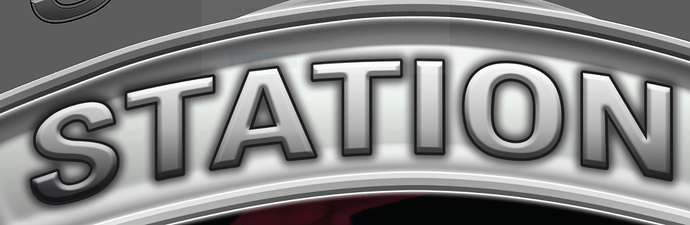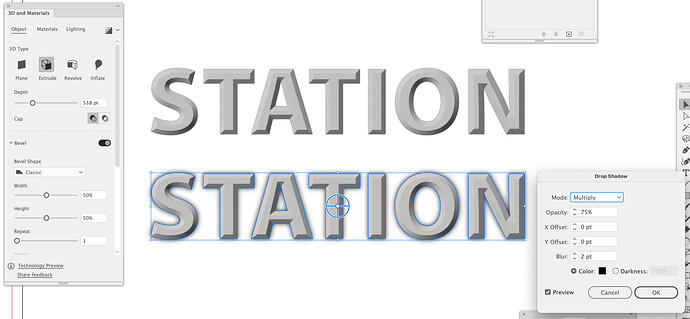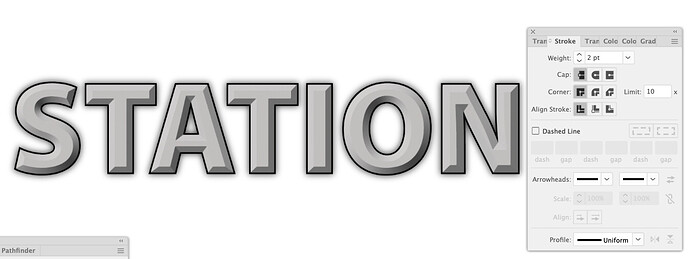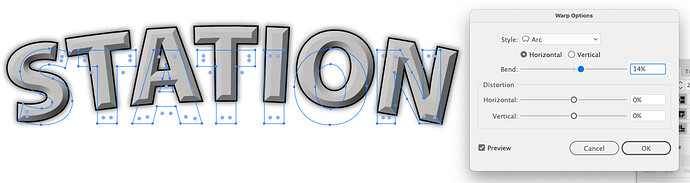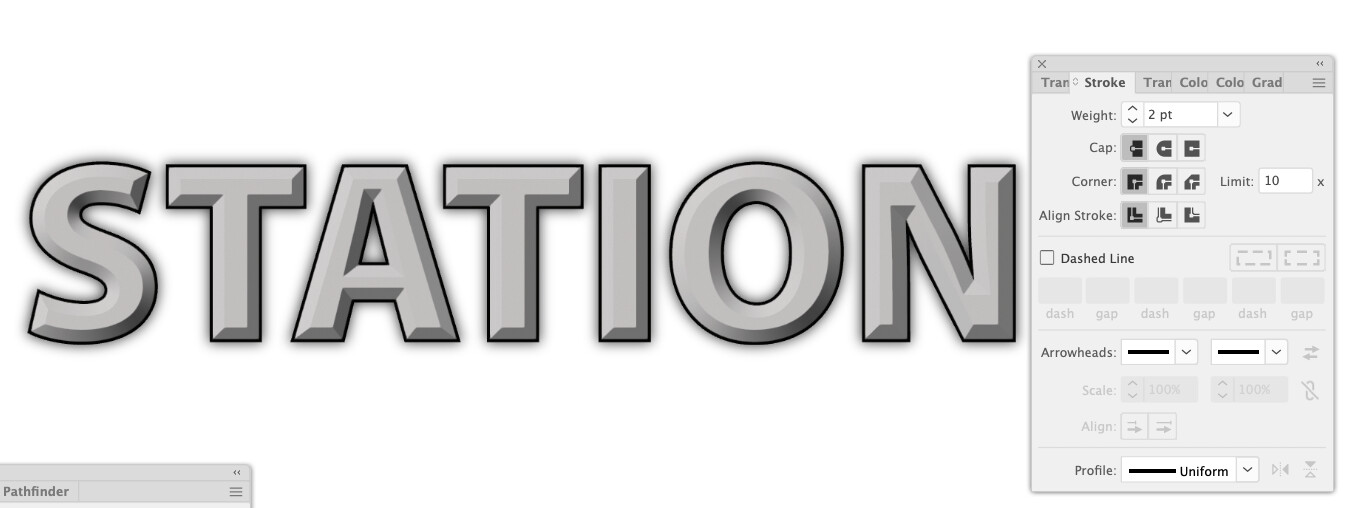
I am trying to recreate this effect onto a font. I’m mostly self taught in Illustrator, I just need a bit of help pointing to the effects displayed here.
It’s doable in Illustrator with a bunch of work, but I’m guessing the effects you mentioned were done in Photoshop. The drop shadow and bevel layer effects would make this sort of thing easier.
Yes I agree. The path would have been a lot more logical when done in Illustrator. Or could be the singer not the song.
I may have misspoken or there is a bit of confusion, I’m just trying to recreate it, not necessarily make a type font. If I have to turn these into lines and add effects to mimic it, so be it.
I’m hoping this clarifies things. Unfortunately I don’t have photoshop, but I do need to recreate it for a project. Any links to tutorials would be appreciated. I’m willing to do the legwork on figuring out how to do it, I just don’t know what terms to search.